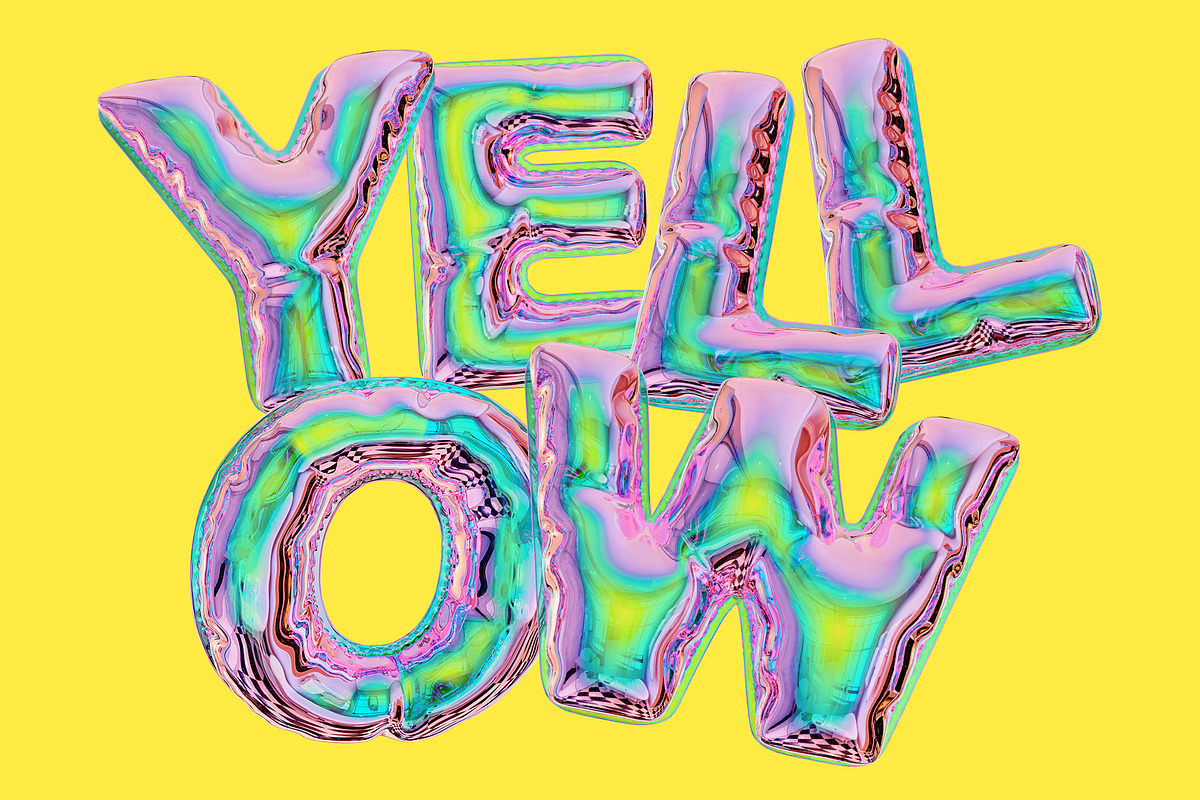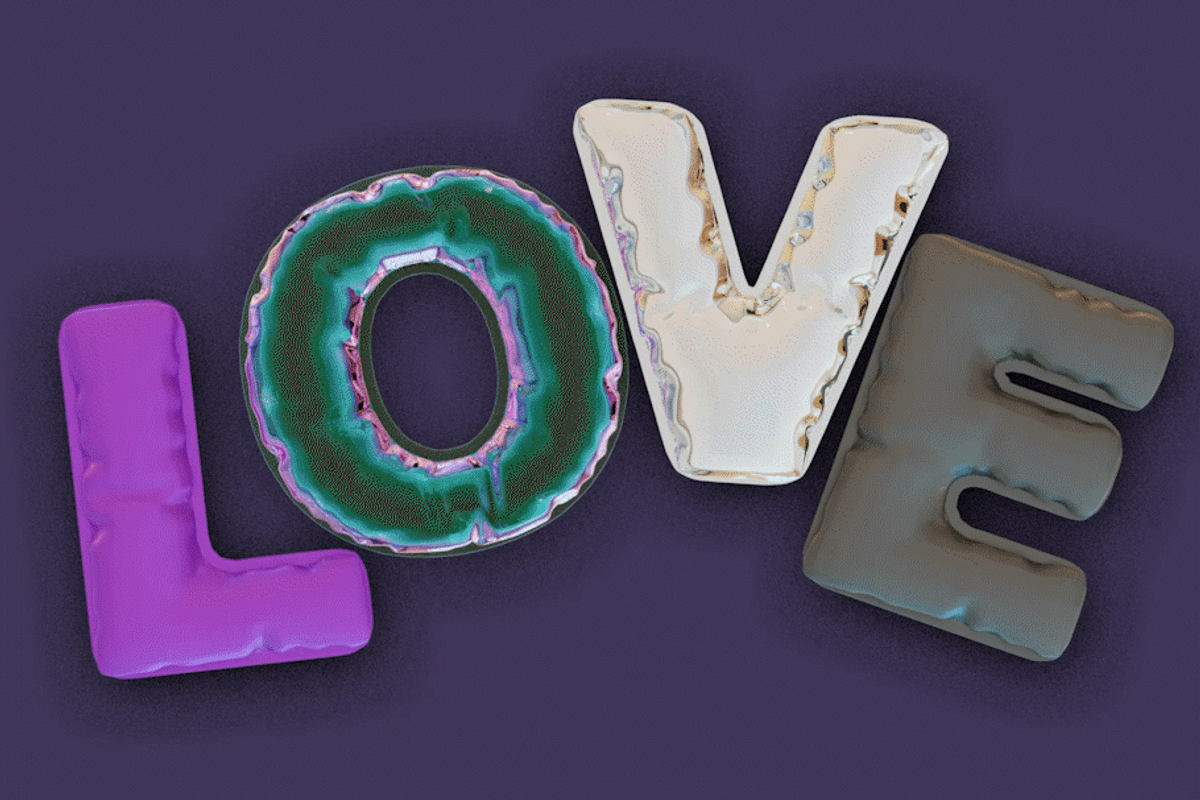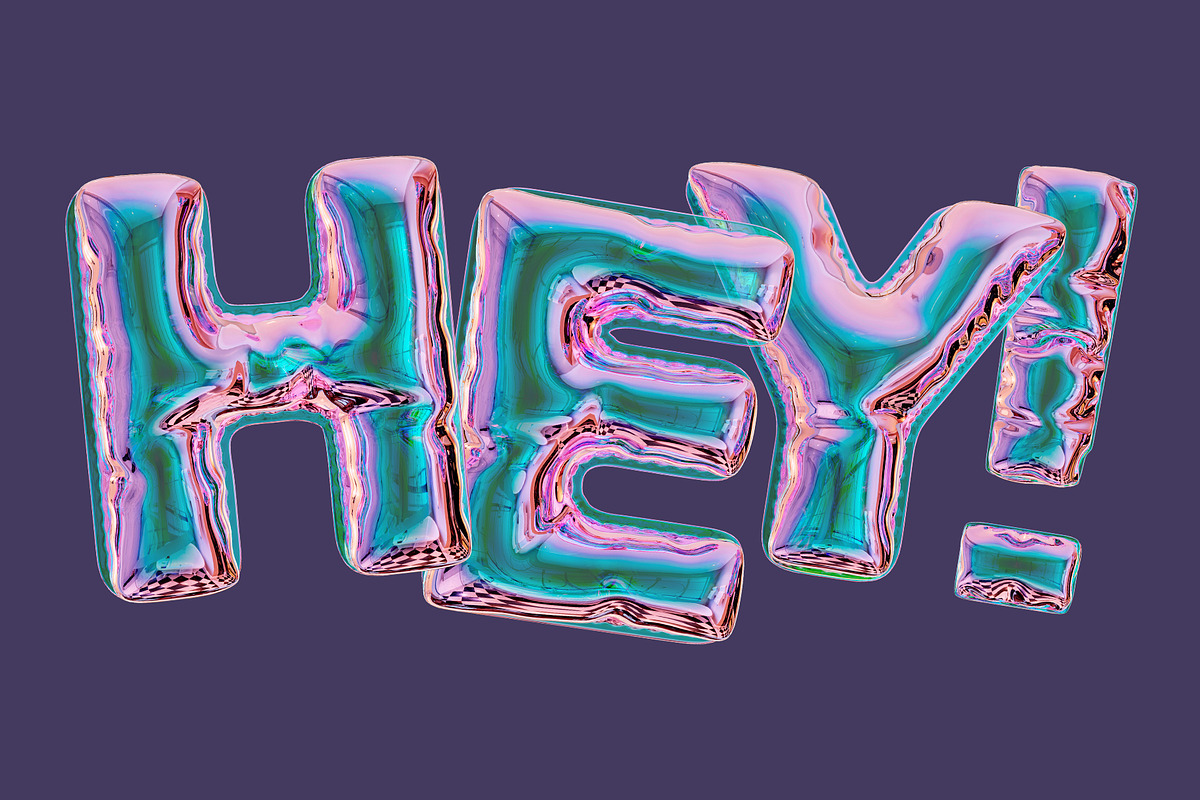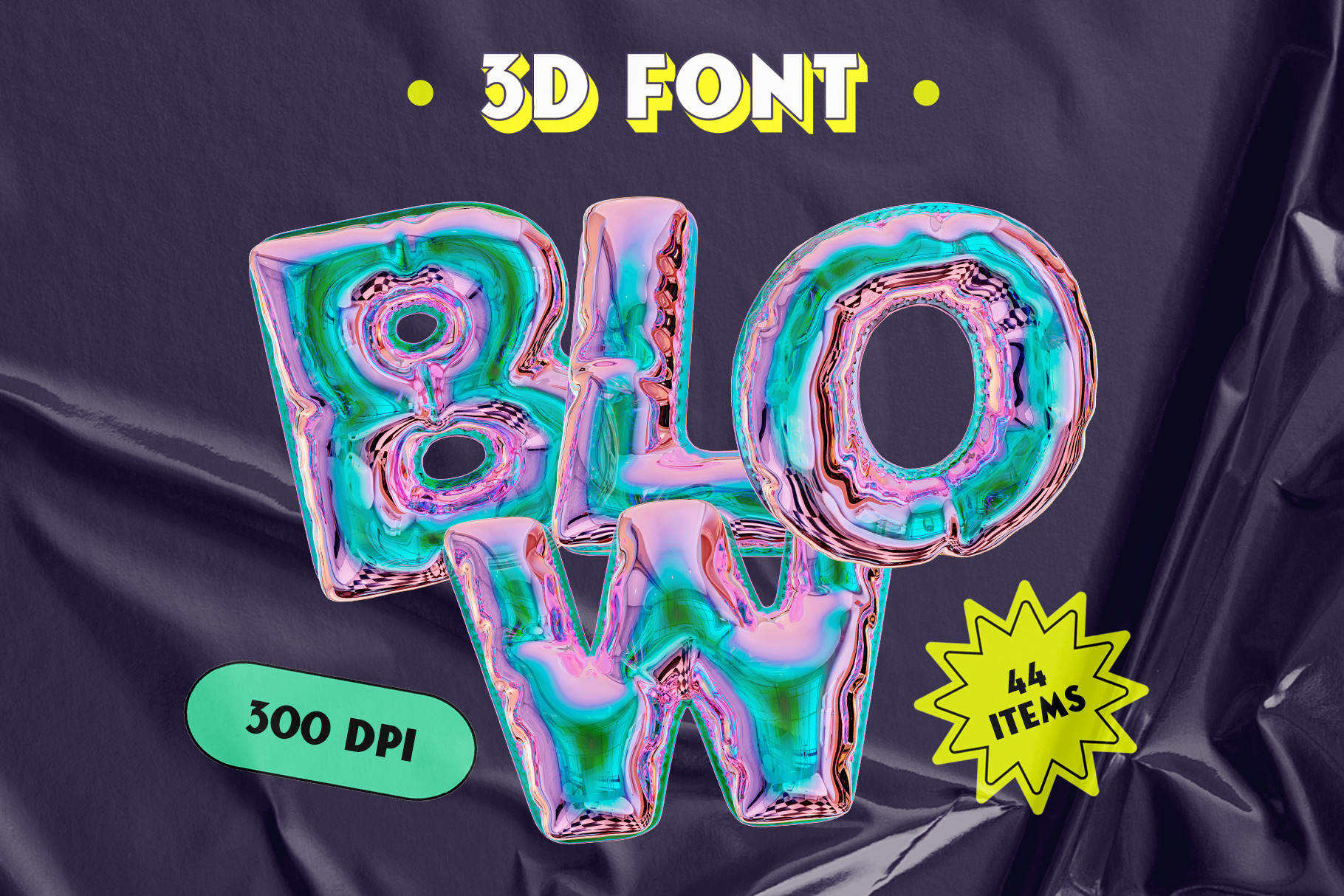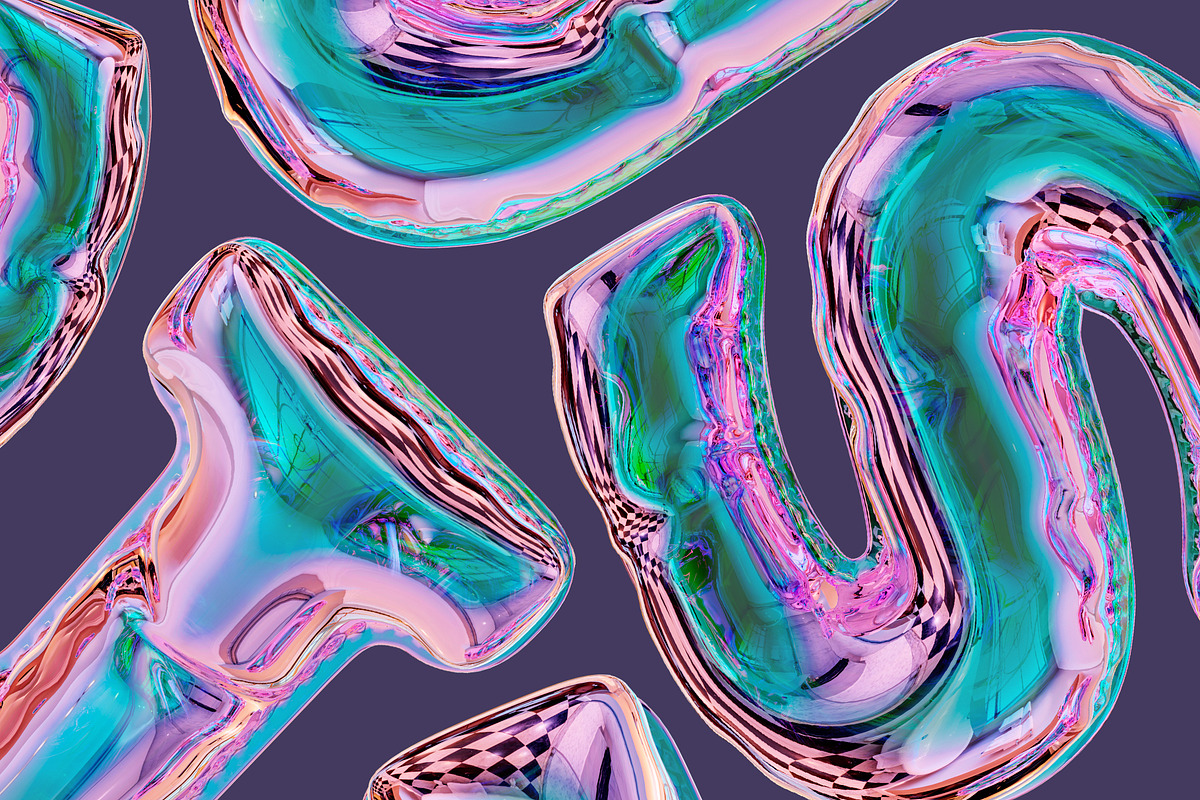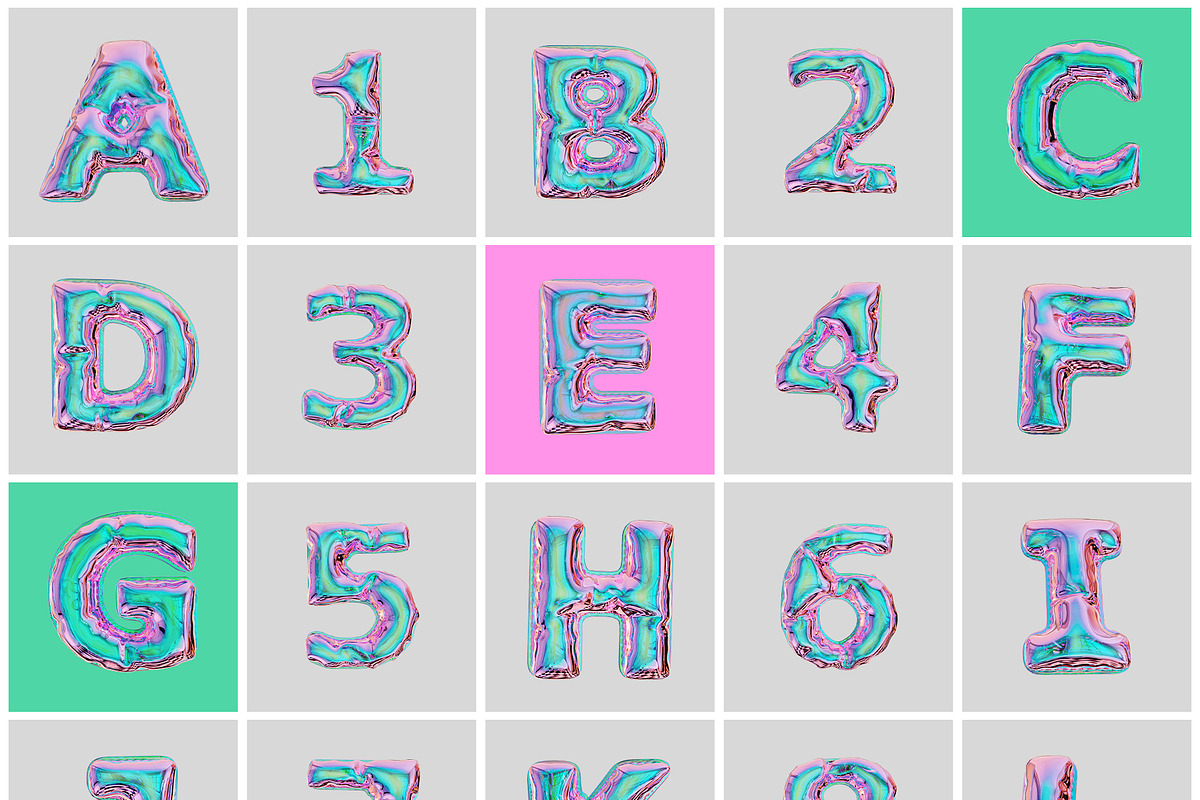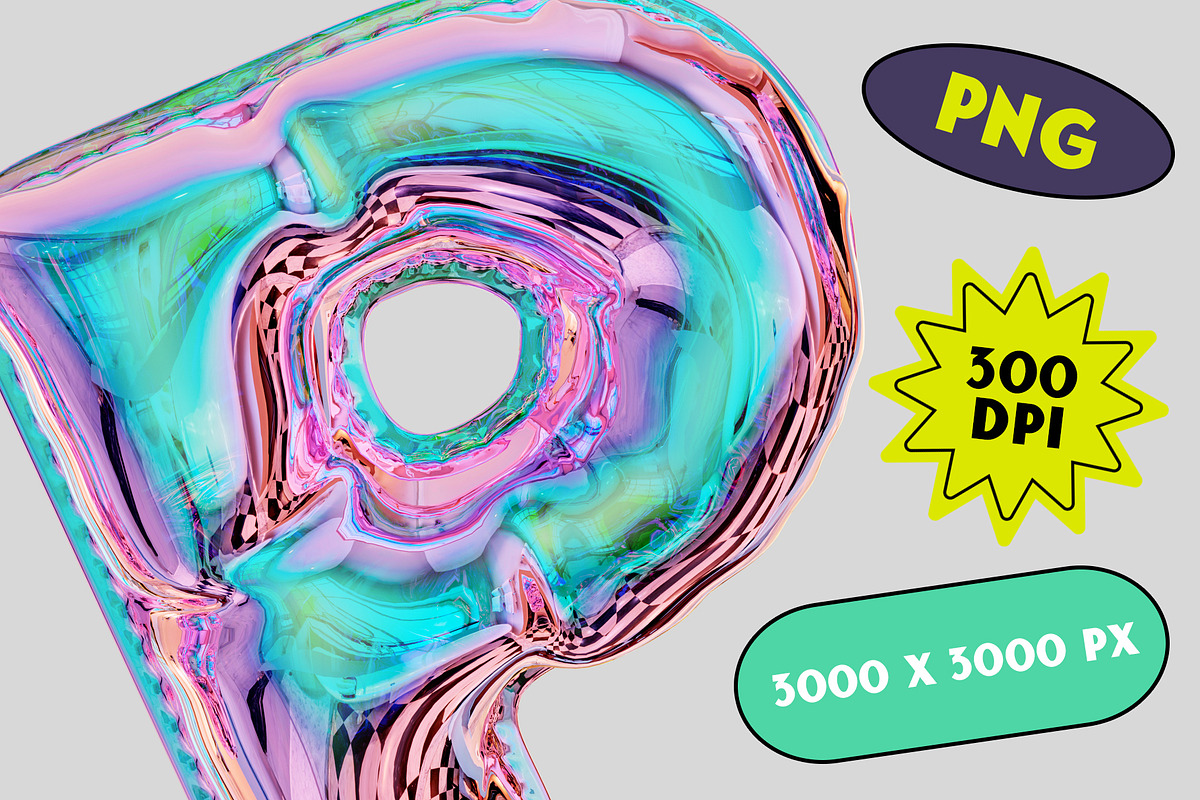
Blow - 3D Holographic Font
This font set includes PNG alphabet letters and symbols with transparent backgrounds, provided in a glossy holographic style that works perfectly for logos, posters, social media graphics, signage, party invitations, branding, and more. Each character has been crafted to blend Y2K nostalgia with modern design trends, offering bold visual impact for creative projects.
- Typography and logo design
- Poster and signage graphics
- Social media and web content
- Party invitations and event branding
- Merch and product artwork
- Digital and print layouts
Harness the playful, futuristic vibe of the Y2K era while giving your designs a professional, shiny visual edge.